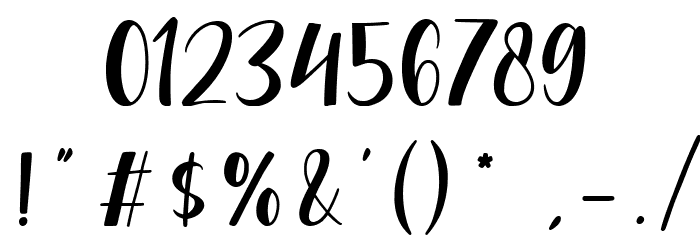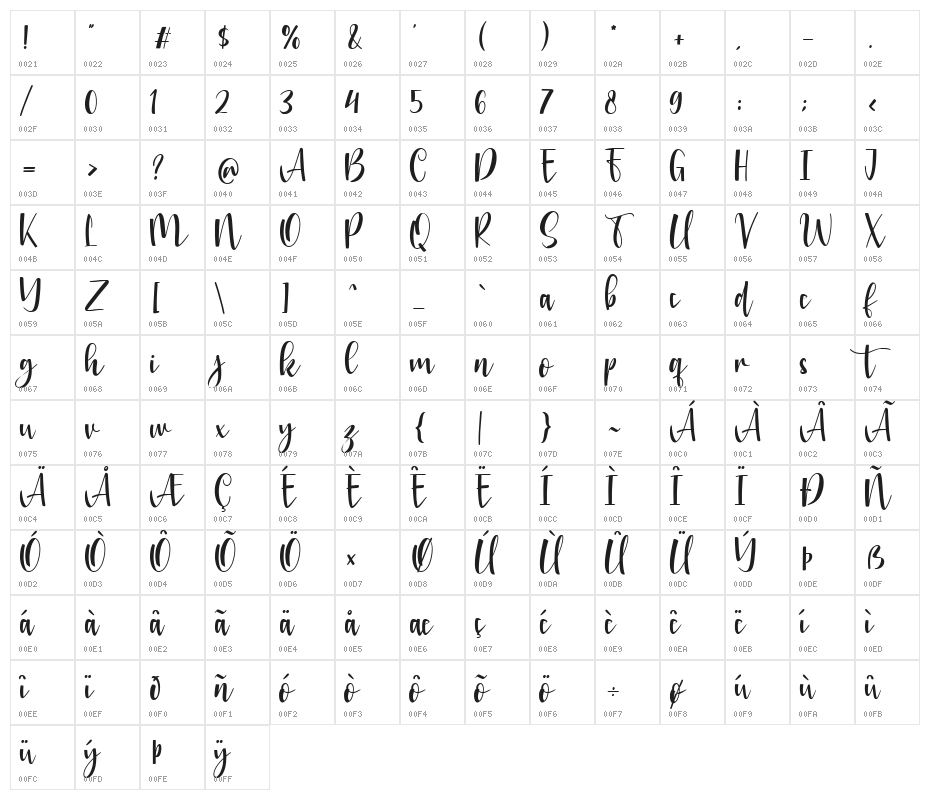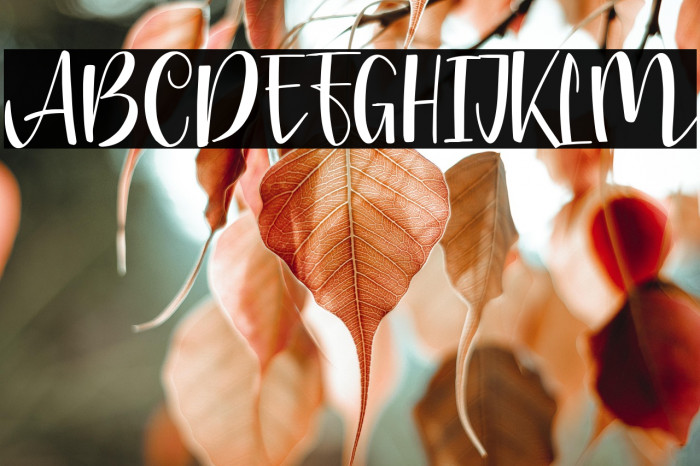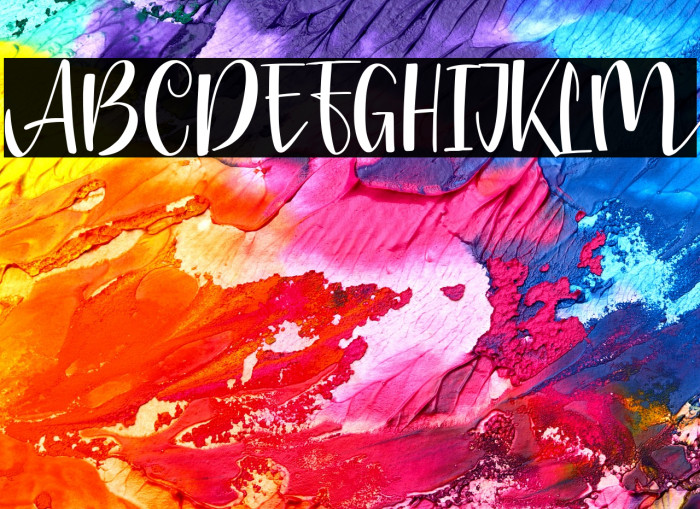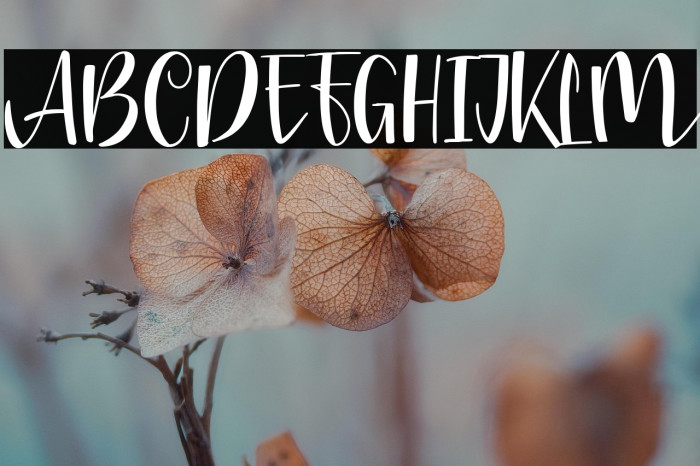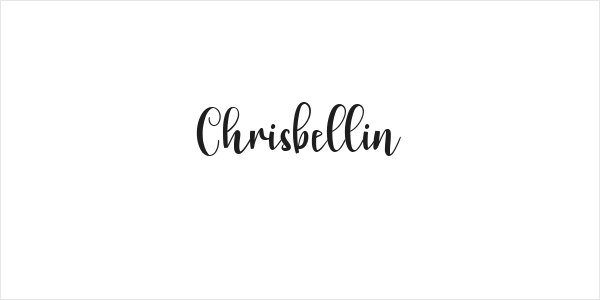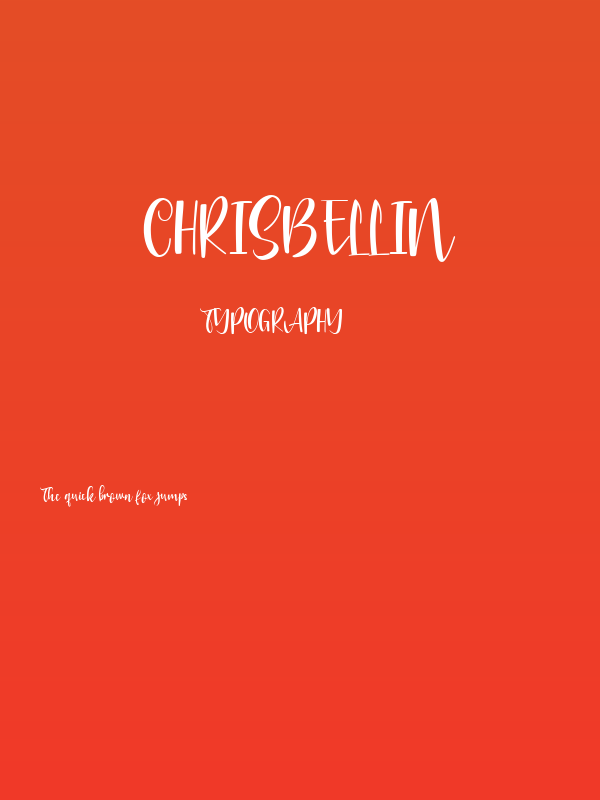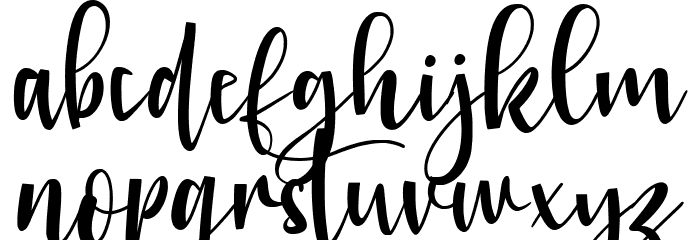
Chrisbellin Font
Chrisbellin Description
This font exudes a lively and expressive character, with a handwritten script style that features fluid, sweeping strokes. The uppercase letters are bold and dynamic, while the lowercase letters maintain a graceful flow, creating a harmonious balance. The numerals are distinct and easy to read, complementing the overall aesthetic. Special characters are crafted with the same attention to detail, adding versatility to the font. The design is perfect for projects that require a personal touch, such as invitations, greeting cards, or branding materials. Its artistic flair makes it stand out, making it ideal for creative and expressive designs.